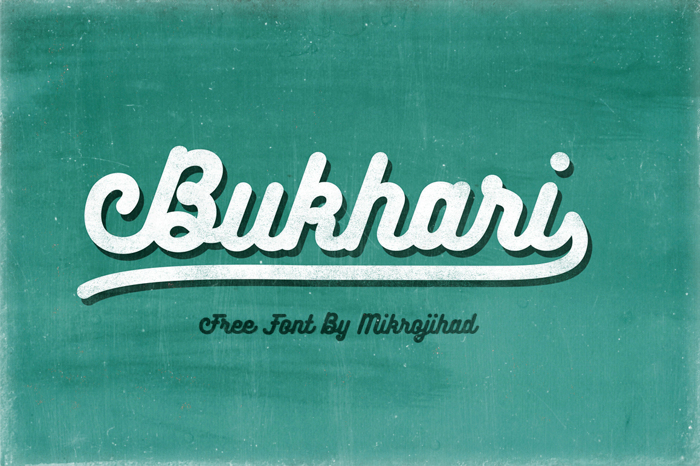
Bukhari Script Font
Bukhari Script
Altenates Font is available on separate font files.
On Bukhari Alternates Font, for the Uppercase has 2 alternates such as A, B, D, H, K, M, N, R, and P, you can find them on numbers character (0-9).
Very distinct and superbly created.